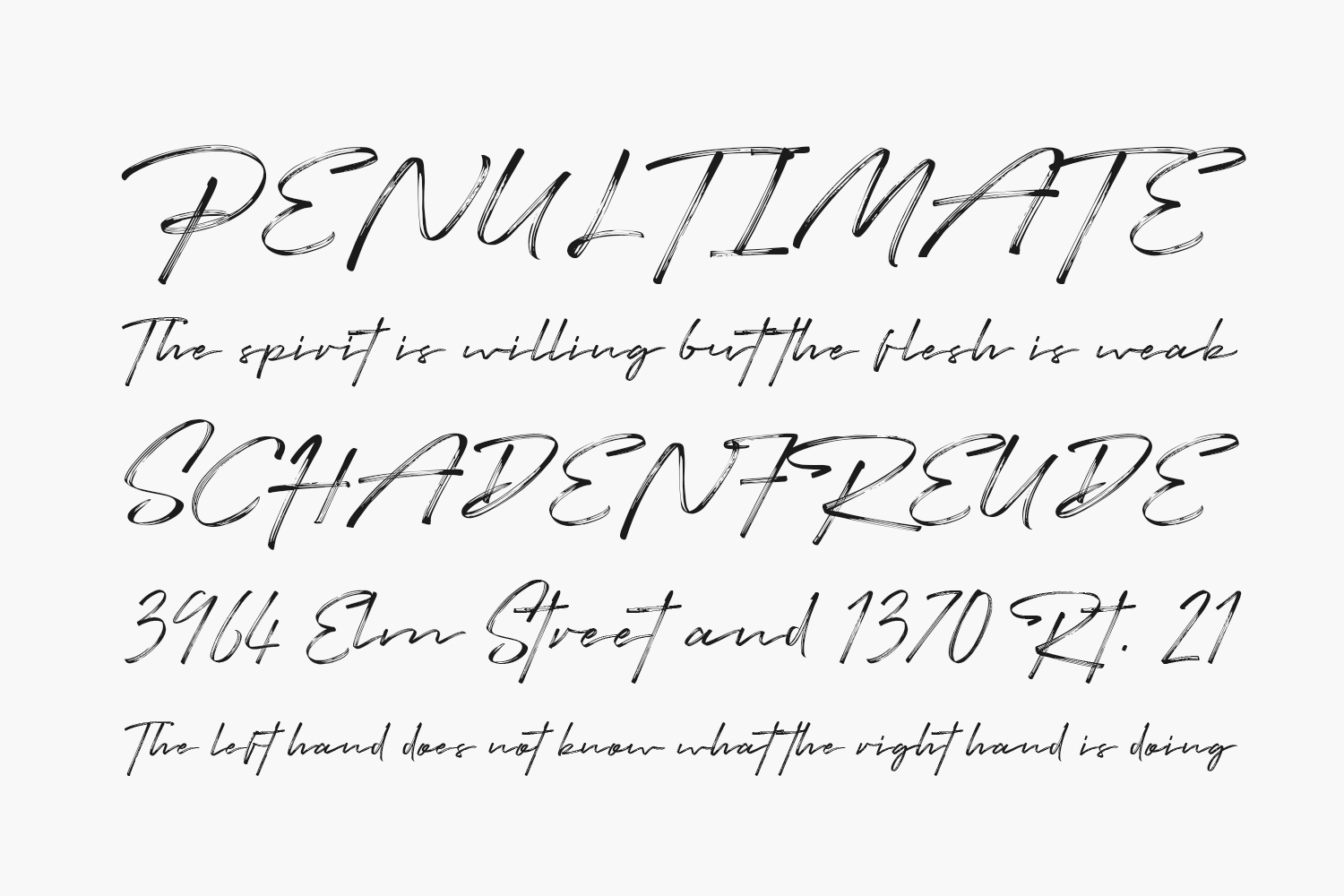
Rock Better Free Font is a cool, flowing, and brushed script font. Trendy and stylish, this font will elevate each of your creations. Rock Better Free Font was designed by 50Fox Studio and is free for personal use only. Please purchase the full version for commercial use.